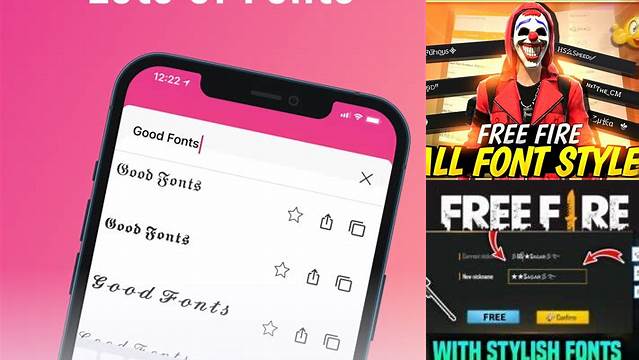
IPhone Fonts For Free Fire: Get Cool Symbols!
Hey guys! Want to make your Free Fire name look super cool and unique? A big part of that is using awesome fonts and symbols, especially those fancy iPhone fonts that everyone loves. This guide will show you everything you need to know about getting and using these fonts in Free Fire. Let's dive in!
What are iPhone Fonts and Why are They Popular in Free Fire?
First off, let's talk about what these iPhone fonts actually are. Basically, they're a collection of stylish and eye-catching fonts and symbols that are commonly found on iPhones. Think of those sleek, modern-looking texts and cool symbols you see in iOS – that's what we're talking about. Now, why are they so popular in Free Fire? Well, everyone wants to stand out, right? Using these fonts lets you create a unique in-game name that grabs attention and makes you look like a pro. Plus, it adds a touch of personal flair to your gaming profile, which is always a good thing.
The appeal of iPhone fonts extends beyond mere aesthetics; they symbolize a sense of sophistication and individuality. In a game where millions of players compete, having a distinctive name can set you apart and leave a lasting impression. These fonts often include special characters, symbols, and stylistic variations that aren't available in the standard Free Fire font set. This allows players to craft names that are not only visually appealing but also representative of their unique personality and gaming style. The use of iPhone fonts is also driven by trends and the desire to emulate popular streamers and professional players who often use these fonts to brand themselves. By adopting these fonts, players can align themselves with a perceived image of success and skill, further enhancing their in-game persona. Furthermore, the easy accessibility and widespread availability of iPhone fonts through various online tools and generators have contributed to their popularity. Players can quickly and easily create customized names without requiring advanced technical skills, making it a convenient option for enhancing their Free Fire experience.
The integration of iPhone fonts into Free Fire also highlights the broader trend of personalization in online gaming. Players are increasingly seeking ways to express their individuality and creativity within the virtual world. This trend is supported by the gaming industry's focus on customization options, such as character skins, weapon designs, and profile decorations. By allowing players to use custom fonts, Free Fire taps into this desire for personalization, enhancing the overall gaming experience and fostering a sense of community among players who share similar aesthetic preferences. The use of iPhone fonts in Free Fire is therefore more than just a cosmetic enhancement; it's a reflection of the player's identity, style, and connection to the wider gaming culture. As the game continues to evolve, the demand for unique and expressive customization options, including iPhone fonts, is likely to remain strong.
Moreover, the use of iPhone fonts provides a sense of exclusivity. Since not everyone knows how to access or implement these fonts, those who do can feel like they are part of an exclusive group. This sense of belonging and shared knowledge further contributes to the appeal of iPhone fonts. Players often share tips and tricks on how to create the best names, fostering a sense of camaraderie and competition. The desire to have a name that is both unique and recognizable drives the continued use of iPhone fonts in Free Fire. The visual impact of these fonts can also influence how other players perceive you. A well-crafted name can convey confidence, skill, and even humor, all of which can enhance your interactions within the game. In a fast-paced and competitive environment like Free Fire, every advantage counts, and having a memorable name can be a subtle but effective way to stand out from the crowd. As such, the popularity of iPhone fonts is not just about aesthetics; it's about identity, community, and the pursuit of a competitive edge.
How to Get iPhone Fonts for Your Free Fire Name
Another popular method involves using Unicode characters to create unique iPhone font-like names. Unicode is a universal character encoding standard that includes a vast array of symbols and characters from various languages and scripts. By combining these characters, players can create names that mimic the appearance of iPhone fonts. This approach offers a high degree of customization, as players can mix and match different characters to achieve their desired look. However, it also requires a bit of experimentation and creativity to find the right combinations. One of the advantages of using Unicode characters is that they are generally well-supported by most gaming platforms, including Free Fire, reducing the risk of compatibility issues. Furthermore, Unicode characters are often more resistant to censorship, as they are less likely to be flagged as inappropriate or offensive. However, it's important to use Unicode characters responsibly and avoid creating names that could be considered offensive or harmful to other players. By understanding the capabilities of Unicode, players can create truly unique and eye-catching names that set them apart from the crowd.
In addition to online generators and Unicode characters, some players explore the use of custom keyboards that include iPhone fonts and symbols. These keyboards can be installed on mobile devices and allow players to type directly in the desired font, making it easier to create customized names and messages within the game. Custom keyboards often come with a wide range of fonts and symbols, providing players with a diverse selection to choose from. However, it's important to be cautious when installing custom keyboards, as some may pose security risks or collect personal data. Before installing a custom keyboard, it's essential to read reviews and check the developer's reputation to ensure it is safe and reliable. Additionally, players should be aware of the keyboard's permissions and privacy policy to understand how their data will be used. By taking these precautions, players can safely enjoy the benefits of custom keyboards and enhance their Free Fire experience with stylish iPhone fonts and symbols. Ultimately, the choice of method depends on individual preferences and technical skills, but with a little effort, anyone can create a unique and personalized name that reflects their style and personality.
Best Font Generator Websites for Free Fire
Okay, let's get specific. Here are a few of the best font generator websites you can use: LingoJam, Cool Font, and Nickfinder. These sites are super user-friendly. Just type in your name, scroll through the options, and copy the font you like. Remember to test it out in Free Fire to make sure it looks good before you finalize it. Some fonts might not display correctly in the game, so always double-check!
When selecting font generator websites for Free Fire, it's important to consider several factors to ensure a safe and effective experience. One of the primary considerations is the website's reputation and security. Look for websites that have positive reviews and a track record of providing reliable services. Avoid websites that ask for unnecessary personal information or require you to download suspicious software. Another important factor is the variety and quality of fonts offered. Choose websites that offer a wide range of iPhone fonts and symbols, allowing you to create a truly unique and personalized name. Preview the fonts carefully to ensure they are visually appealing and compatible with Free Fire's text rendering system. Some websites may offer additional features such as font editing tools or symbol libraries, which can further enhance your customization options. Finally, consider the website's user interface and ease of use. Choose websites that are intuitive and easy to navigate, making the font generation process quick and hassle-free. By considering these factors, you can select the best font generator websites for Free Fire and create a name that reflects your style and personality.